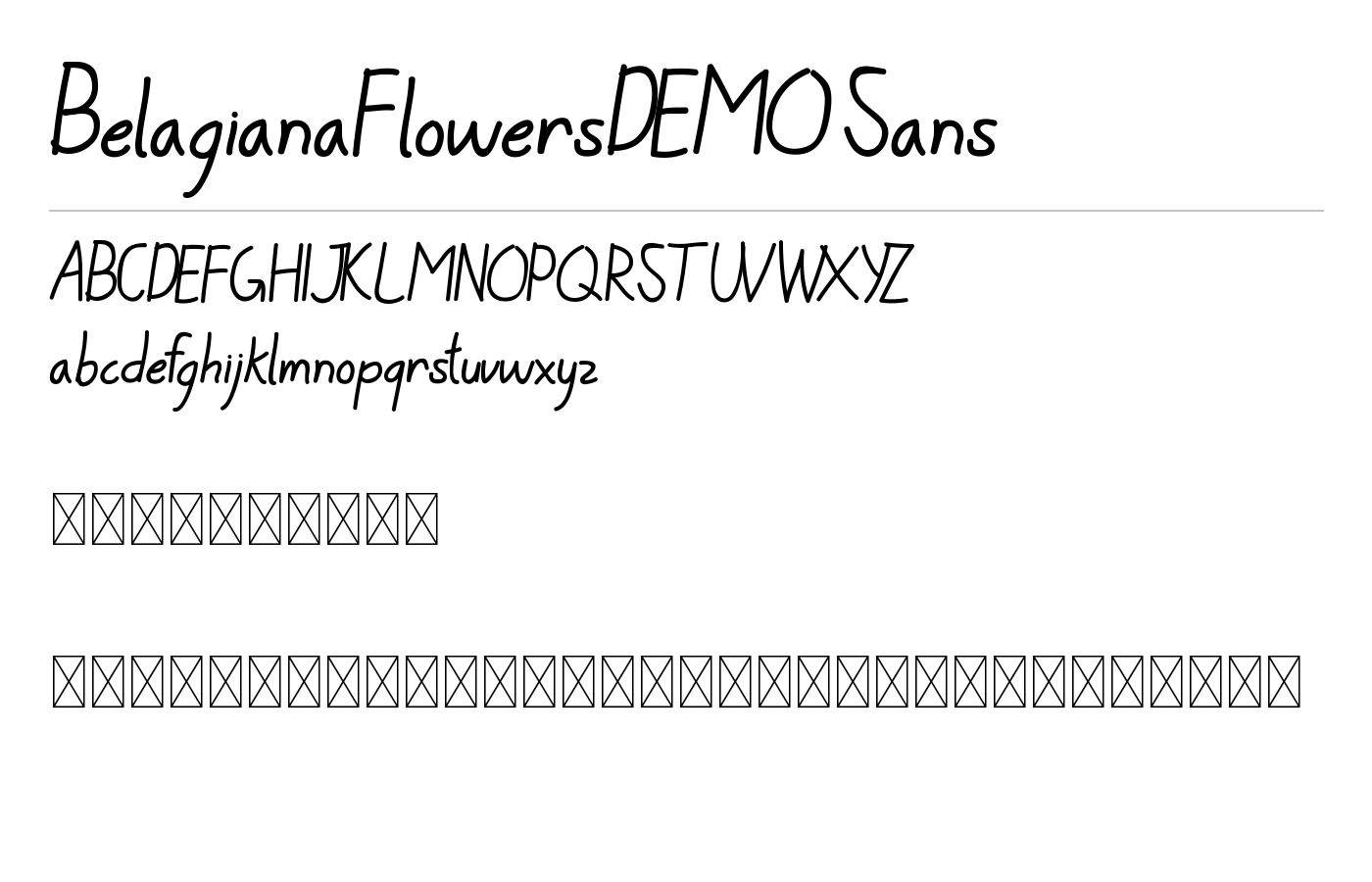
BelagianaFlowersDEMO Sans is a playful and casual sans serif font with a hand-drawn, slightly whimsical feel. Its slender, upright letterforms have light weight and a narrow width, creating an airy and informal impression that works well for creative projects, personal branding, and lighthearted headlines. This font adds a friendly, approachable touch where a natural, handwritten style is desired.